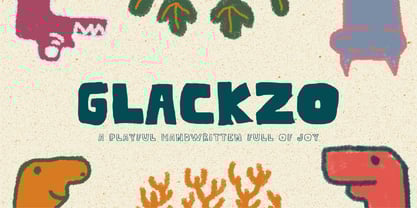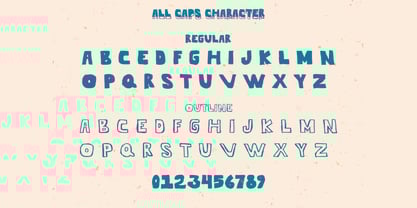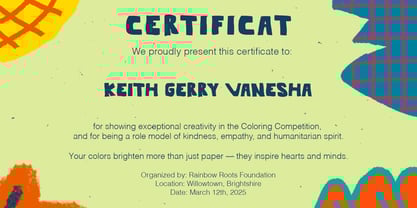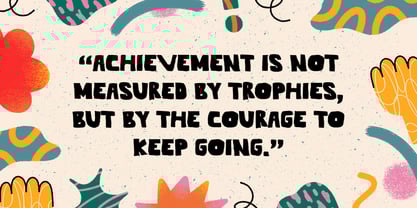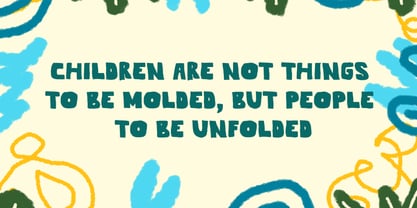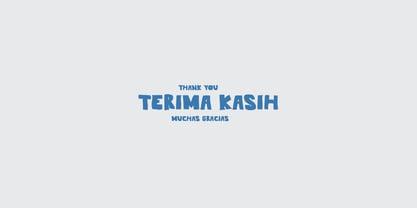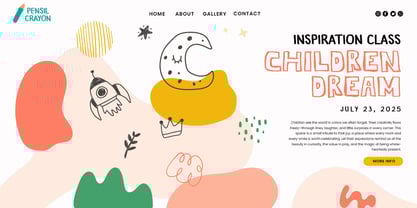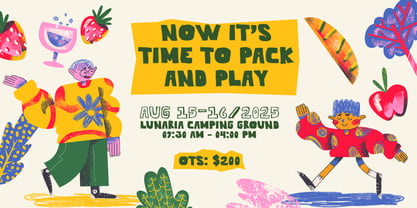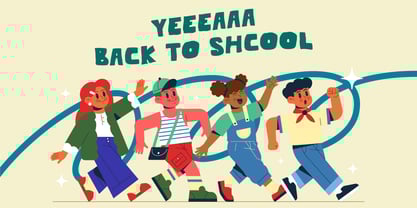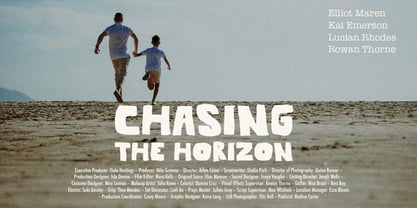
Glackzo Regular
by Nian Keun Studio
The Glackzo Regular Font Family was designed by Mugi Raharjo and published by Nian Keun Studio. Glackzo Regular contains 2 styles and family package options.
Glackzo is a regular, quirky, and playful handwritten font that bursts with joy and personality. With chunky shapes and childlike charm, this typeface brings a fun-loving character to every design. Perfectly imperfect, GALCKZO delivers an organic, crafted feel — as if it was drawn straight from a joyful sketchbook.
Whether you're working on kids branding, educational materials, birthday invites, or fun illustrations, GALCKZO turns every letter into a celebration. Its delightful irregularity and vibrant personality make it irresistible for projects that need warmth, fun, and a personal touch.
Font Features
* Bold, handwritten style
* Uppercase & playful proportions
* Childlike and expressive mood
* Rough organic edges
* High readability with character
Perfect For
* Children's book covers
* Posters & event flyers
* Fun packaging & branding
* Craft product labels
* DIY or hand-drawn themed designs
Designers: Mugi Raharjo
Publisher: Nian Keun Studio
Foundry: Nian Keun Studio
Design Owner: Nian Keun Studio